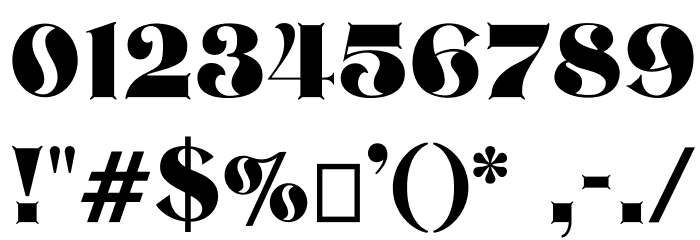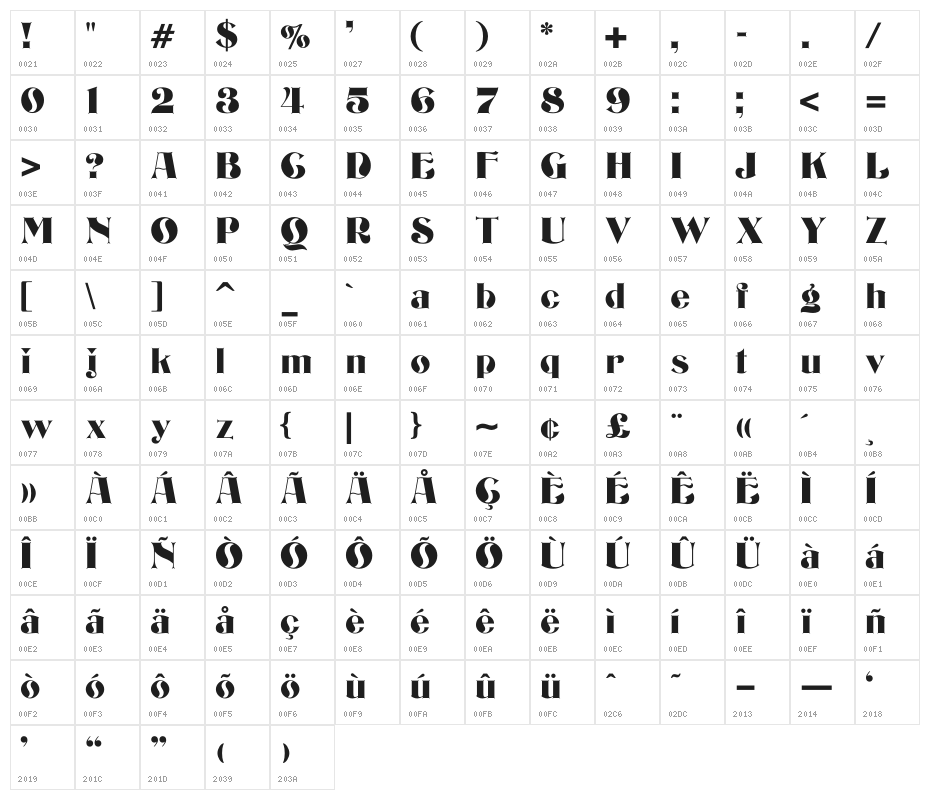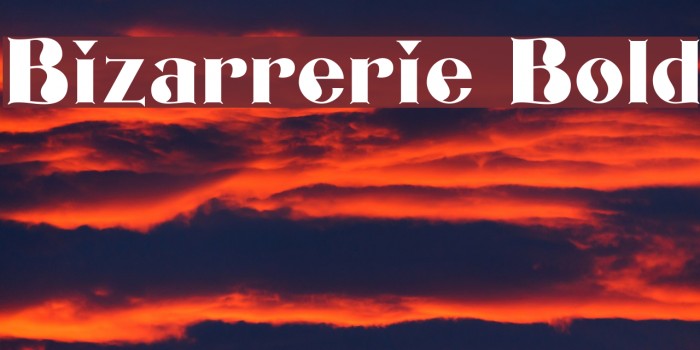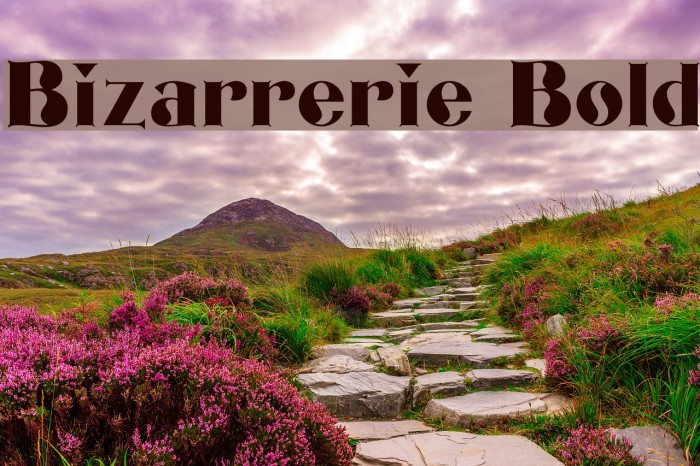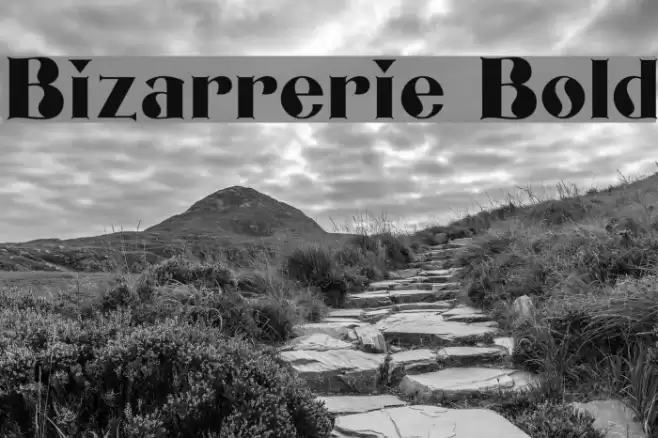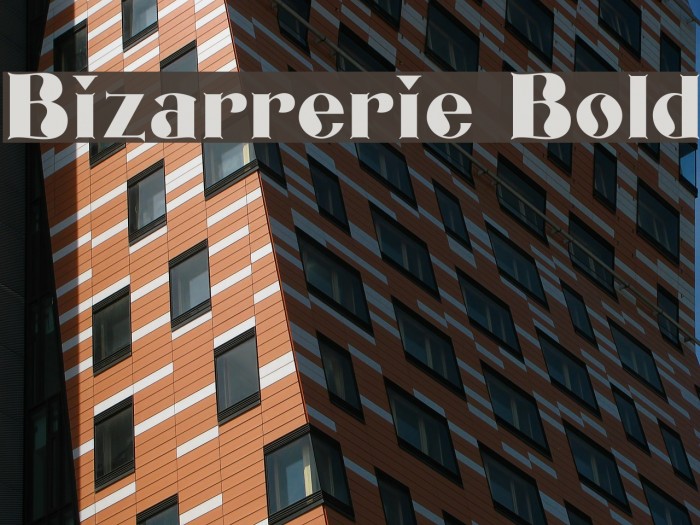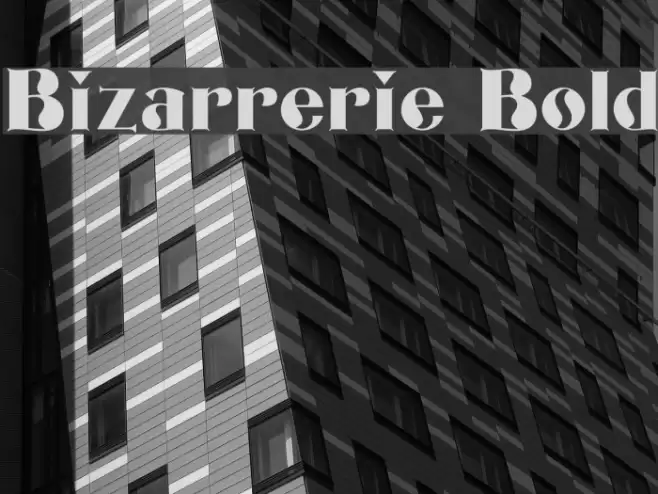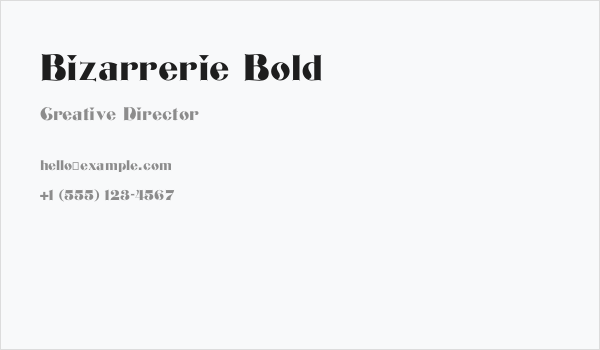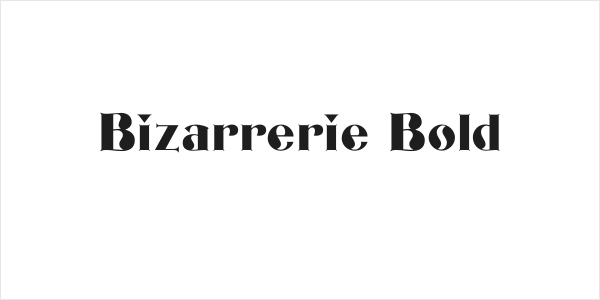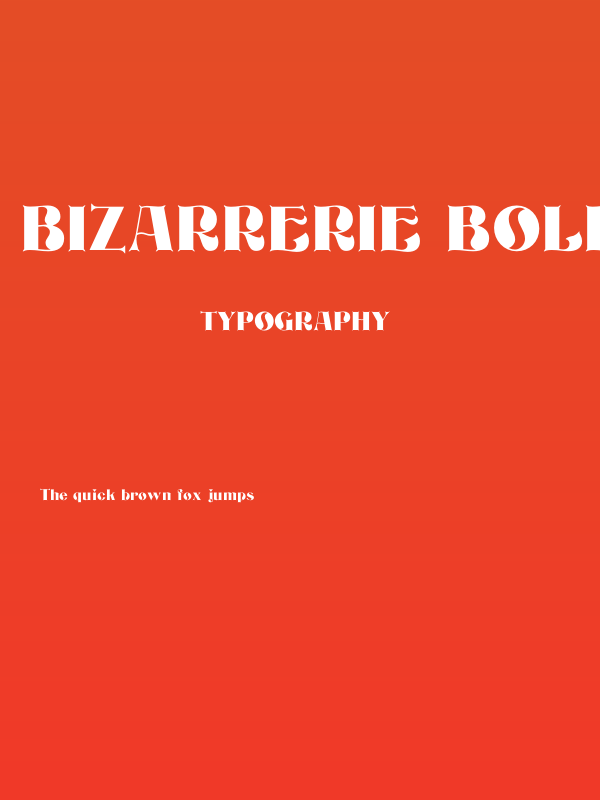
Bizarrerie Bold Font
Bizarrerie Bold Description
This font features a bold and dramatic style with high contrast between thick and thin strokes. The characters exhibit a unique blend of sharp angles and smooth curves, creating a striking visual impact. The uppercase letters are particularly distinctive, with exaggerated serifs and decorative elements that add to the font's ornate appearance. The lowercase letters maintain this decorative style, ensuring consistency across the typeface. Numerals and special characters are equally bold, making them stand out in any design. This font is ideal for projects that require a strong visual presence and a touch of elegance.